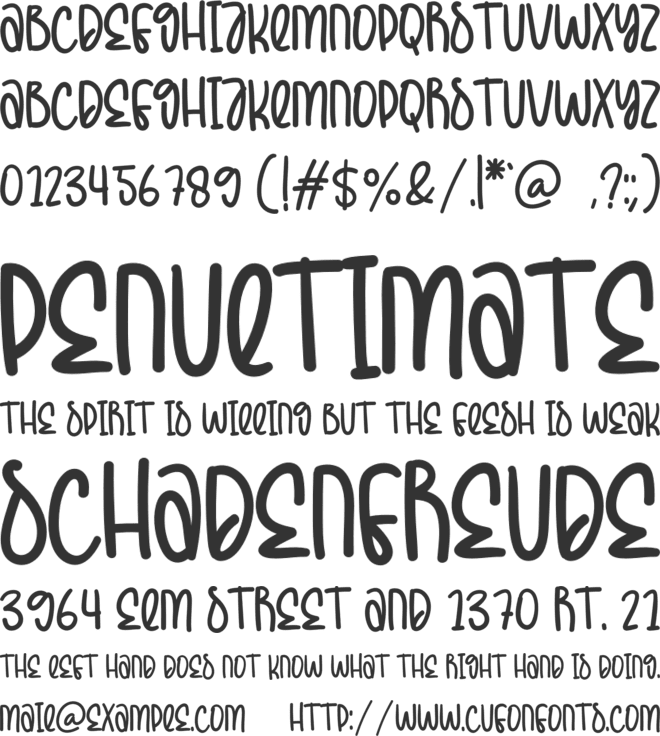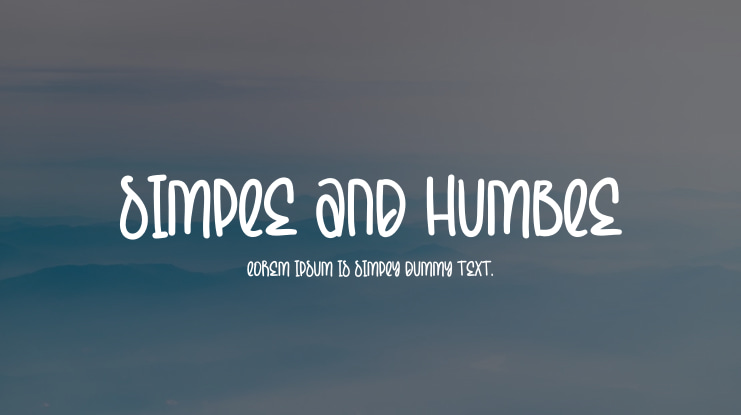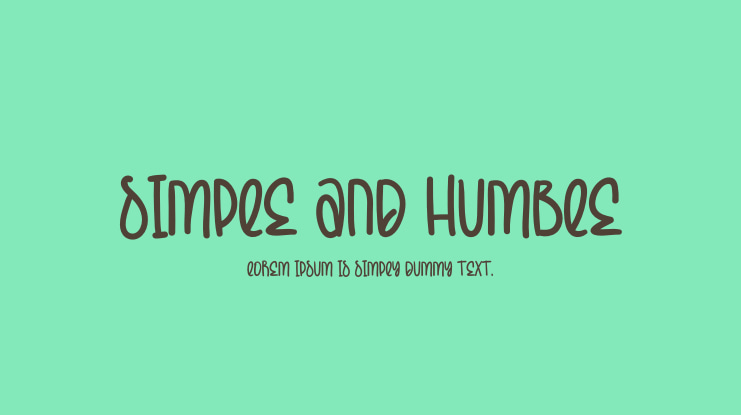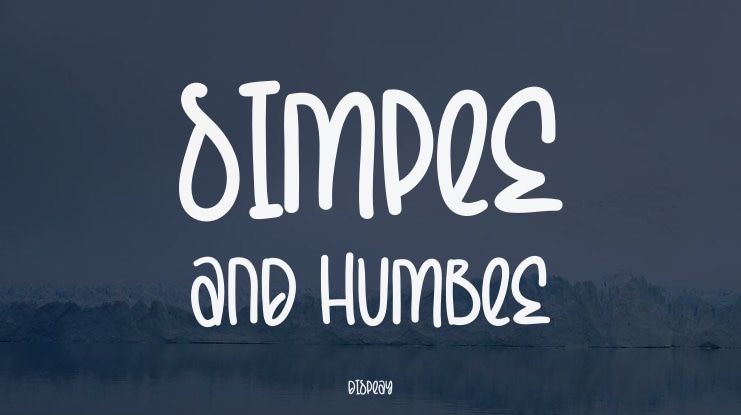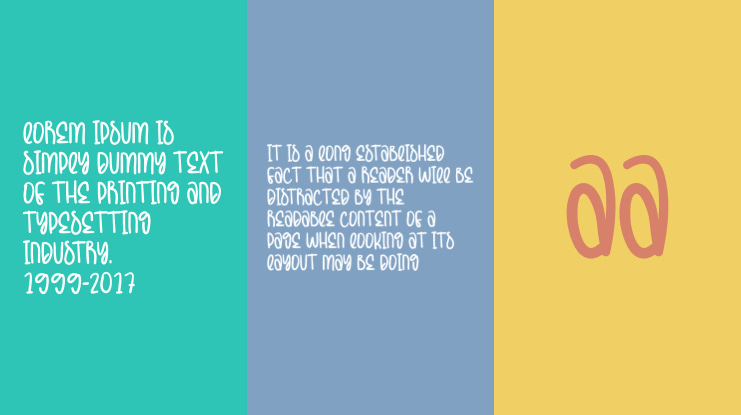
Our latest stylish letter designs are perfect for various applications such as wall displays, wedding invitations, social media post logos, advertisements, product packaging, labels, photography, watermarks, invitations, stationery, and any project that demands beautifully crafted handwriting.